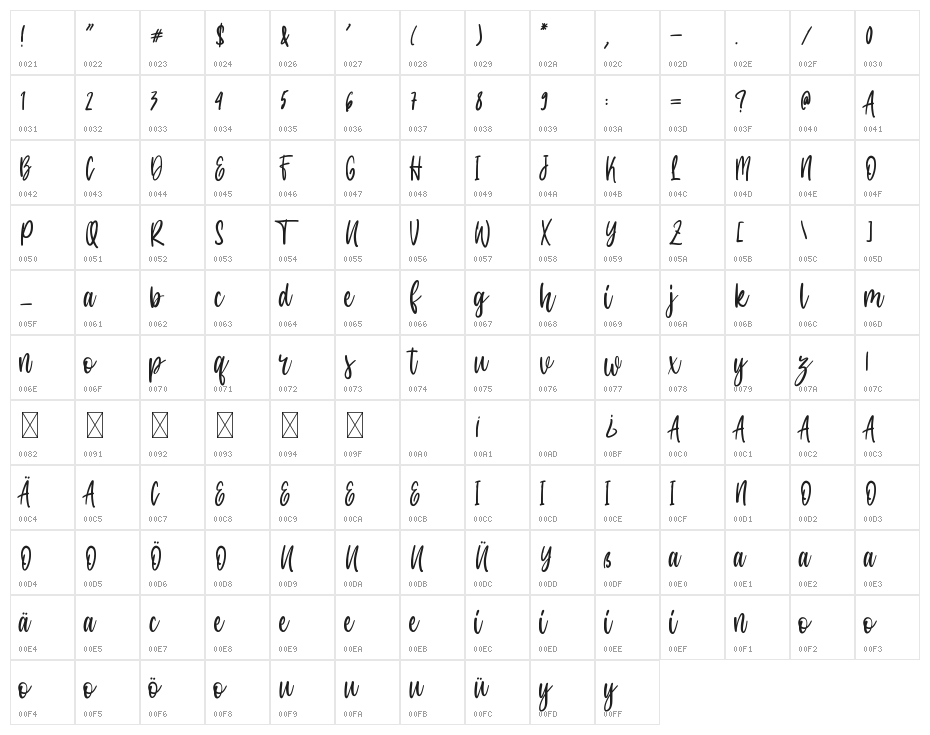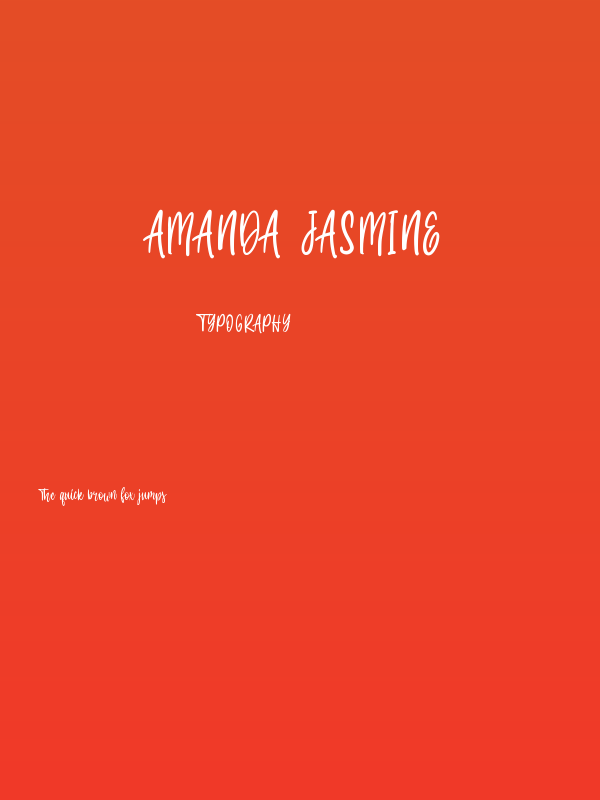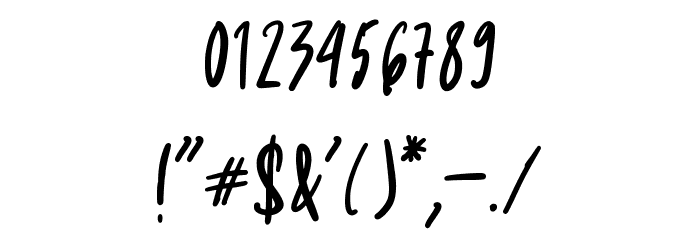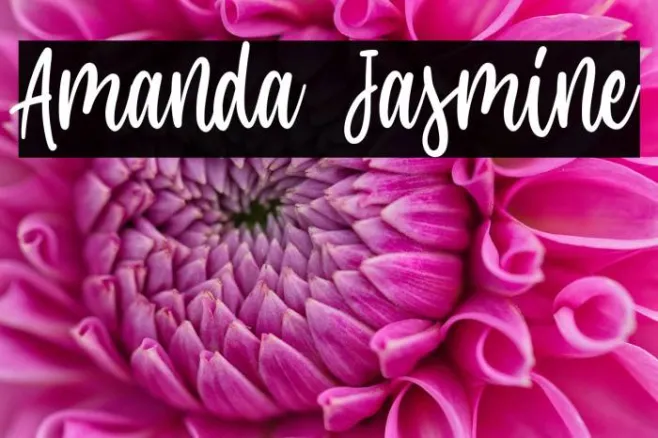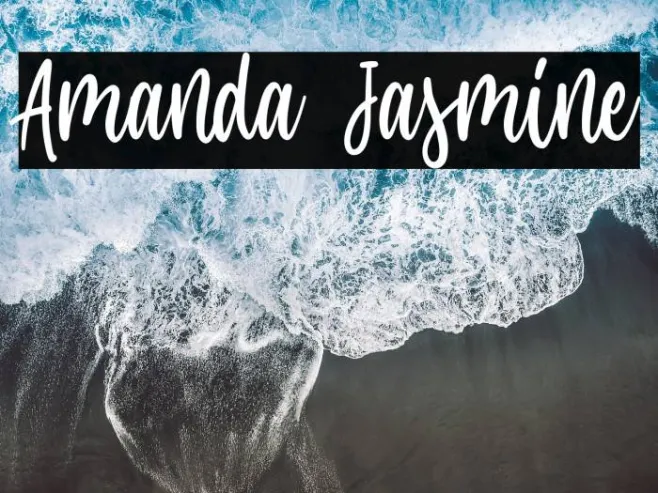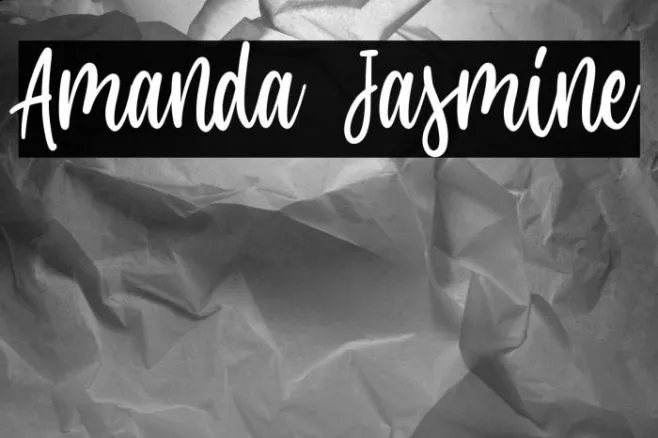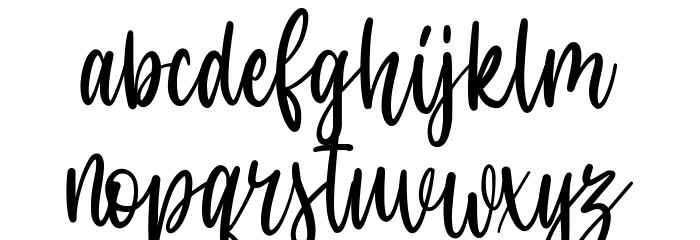
Amanda Jasmine Font
Amanda Jasmine Description
This font features a lively and flowing script style, characterized by its smooth, cursive strokes and playful loops. The letters are interconnected, giving it a handwritten feel that is both elegant and casual. The uppercase letters are bold and prominent, while the lowercase letters maintain a consistent flow, enhancing readability. The numerals and special characters complement the alphabet with their cohesive design, making this font versatile for various creative projects. Its dynamic appearance makes it suitable for designs that require a personal touch.